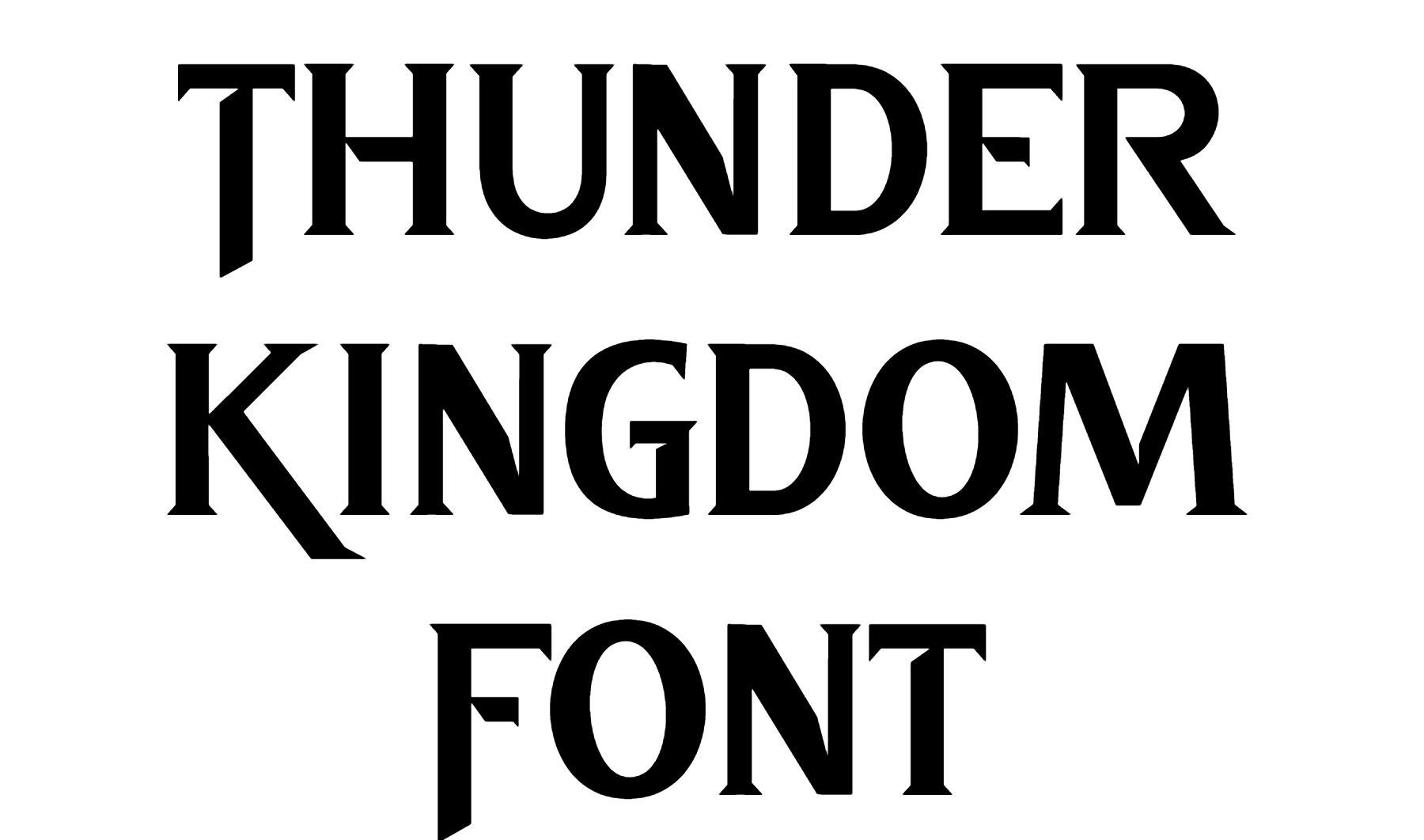
Thunder Kingdom
Thunder Kingdom is a serif font made by Toni Dzulham. Small strokes at the ends of its letters (the serifs) give it a classic, trustworthy look. It's a free download, and you can try it with your own text in the preview above first.
What You Can Type With Thunder Kingdom
You get every letter from A to Z in both cases and all the numbers from 0 to 9, which means Thunder Kingdom can handle full sentences, dates and prices. Everyday marks like &, !, ? and @ are there too. Thanks to its accented letters, it also works for Spanish, French, German, Portuguese and Italian, not just English.
How to Use the Alternate Letters in Thunder Kingdom
Where Thunder Kingdom Works Best
Thunder Kingdom is a natural fit for book covers, magazine headlines and classic branding. Its lowercase letters are small compared to the capitals, so set it a size or two bigger than usual. Serif fonts shine in headlines and printed text. For long paragraphs on phones, check that it still reads well at small sizes.